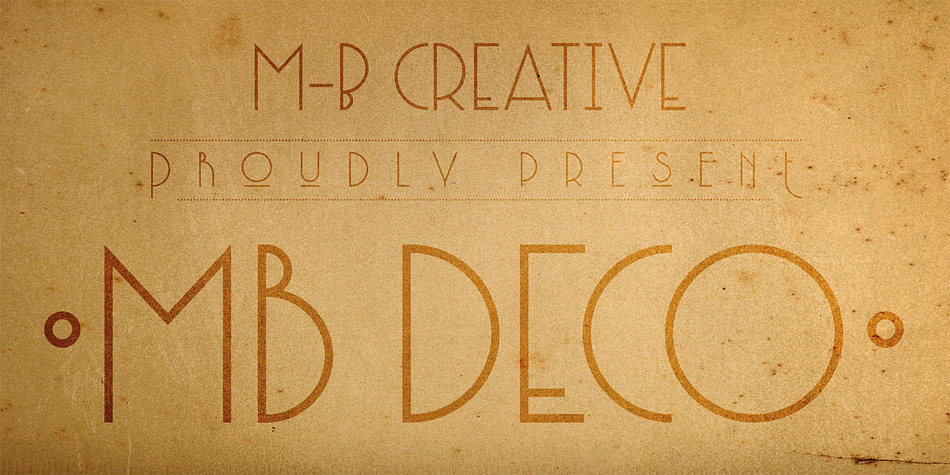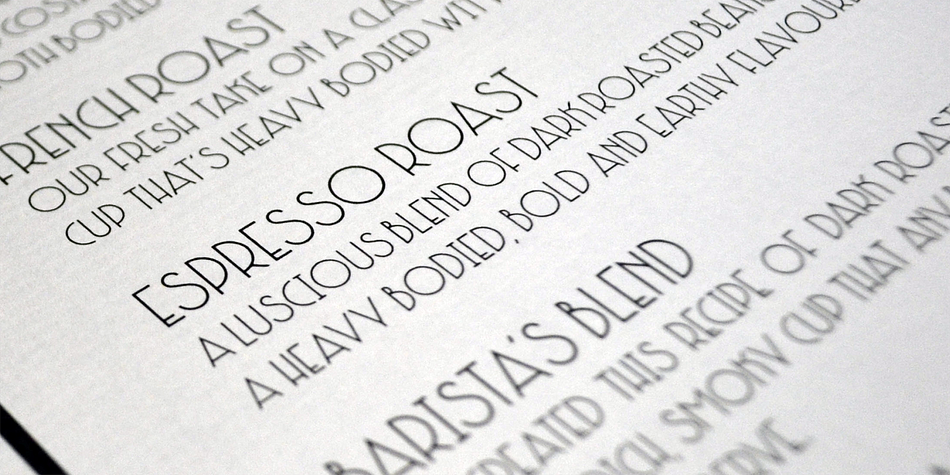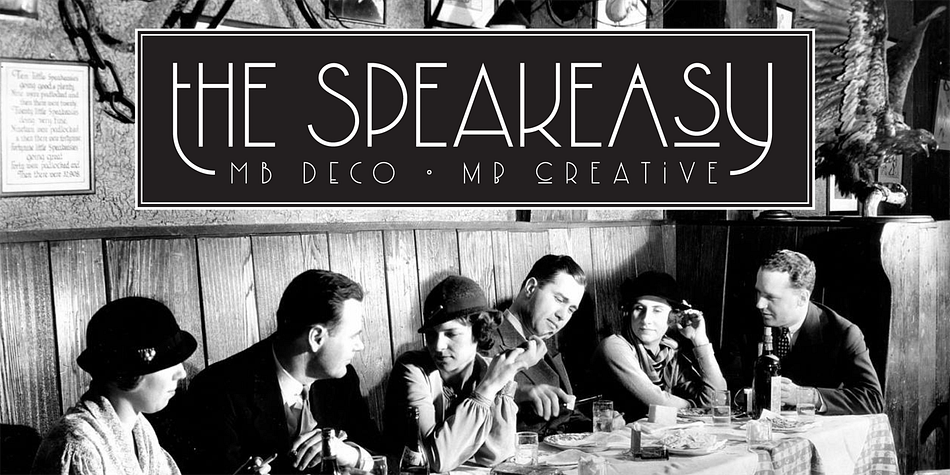
MB DECO is a display sans and art deco font published by M-B Creative.
ALL CAPS ART DECO FONT WITH ALTERNATE CHARACTERS IN UPPER AND LOWER CASE GLYPHS, SOME NICE LIGATURES TO CREATE INTERESTING LETTER SETS. GREAT FOR LOGOTYPES, HEADLINES, STRAPLINES AND SMALLER DESCRIPTIVE TEXT TO GIVE THAT AUTHENTIC ART DECO LOOK AND FEEL